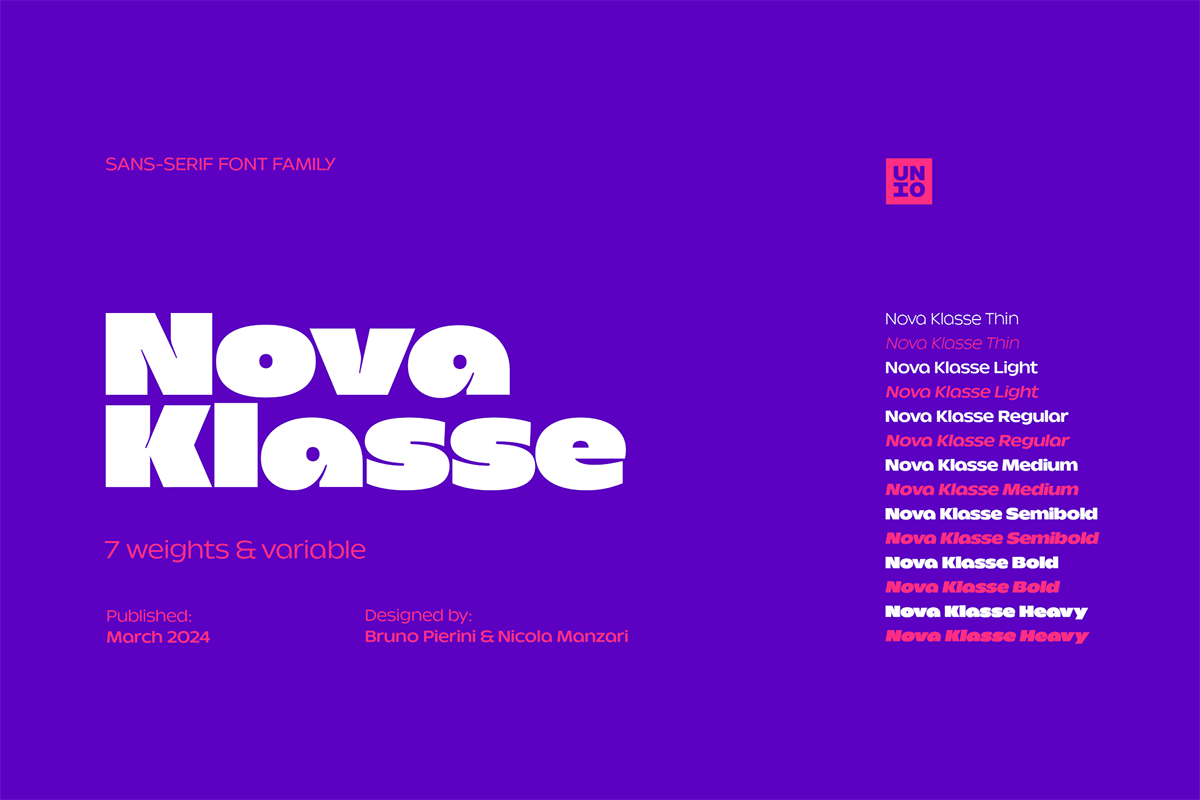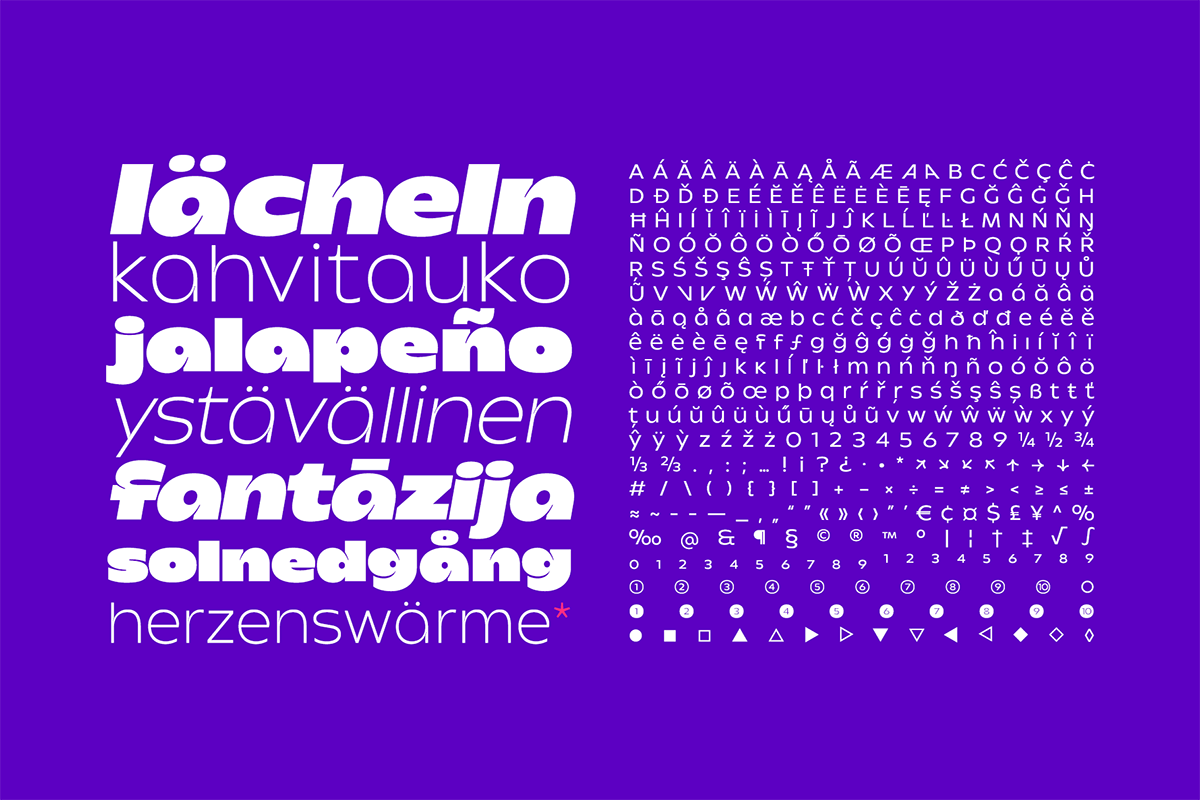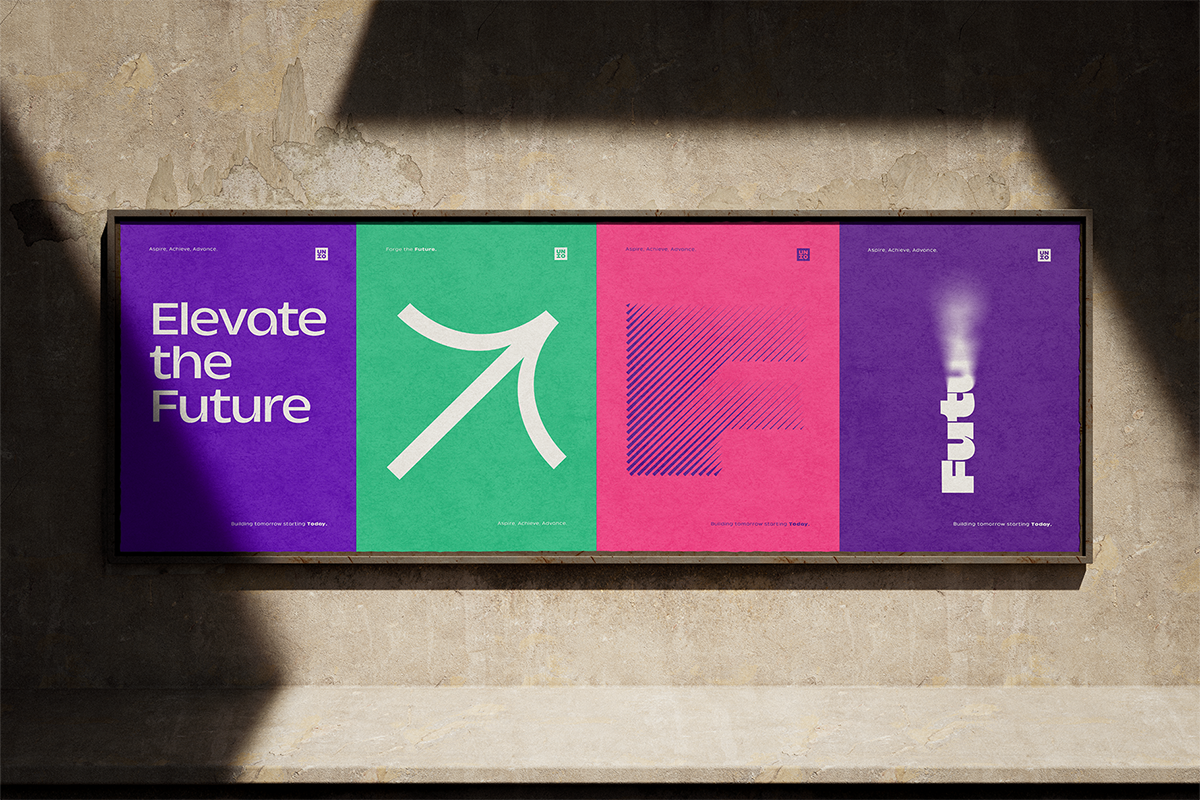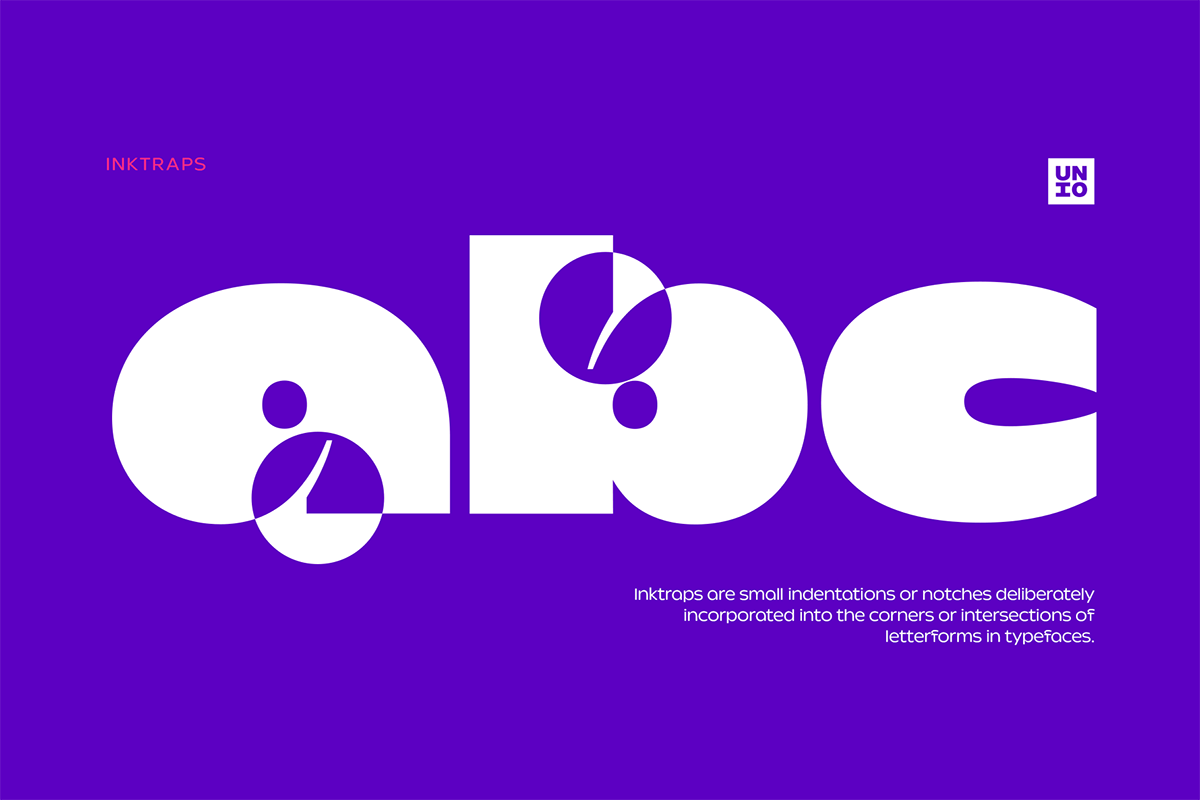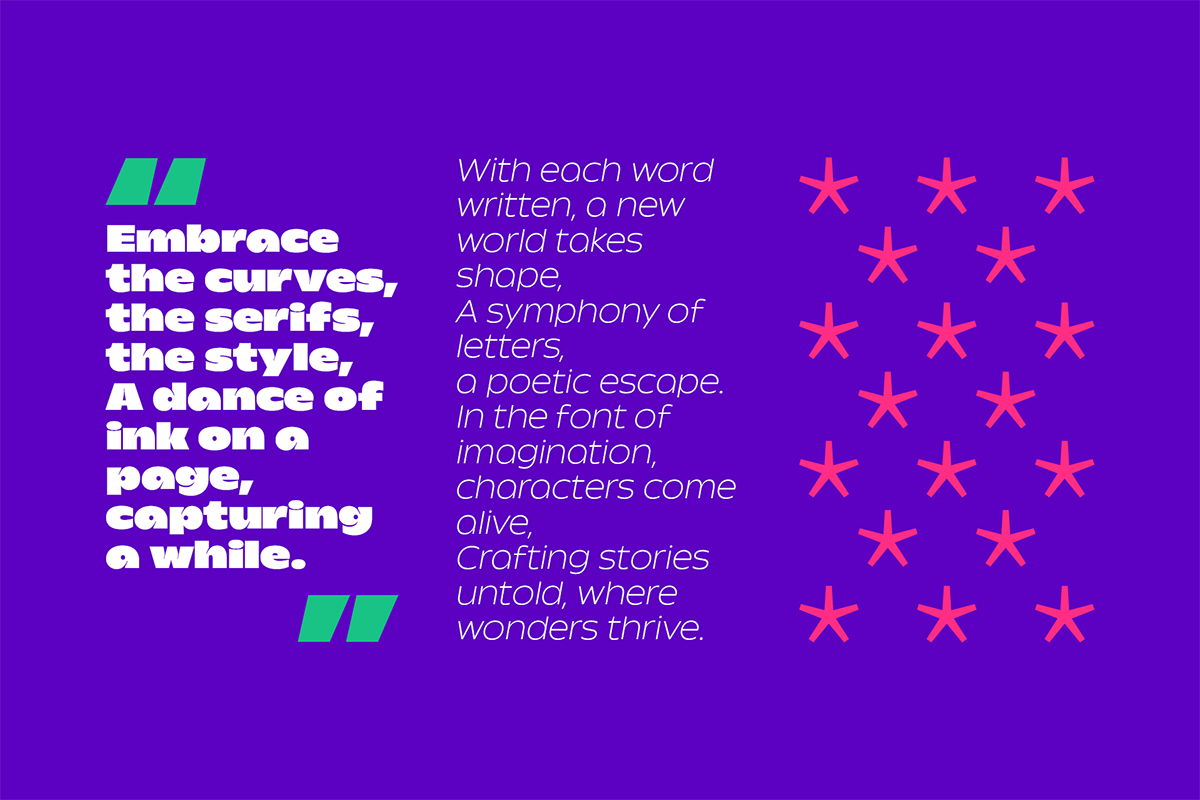
Nova Klasse Display Font is a modern geometric sans serif typeface that bursts with personality. It combines circular and rectangular shapes to create a distinct look, while incorporating organic details and unconventional touches for added warmth and character. This playful spirit is grounded in strong design principles – form, space, and viewer interaction – all key elements of modern design.